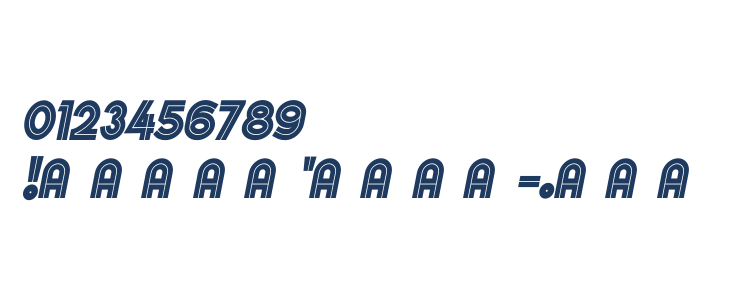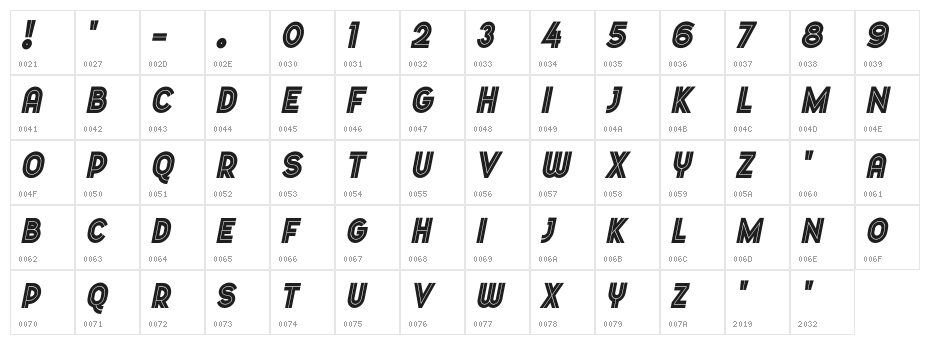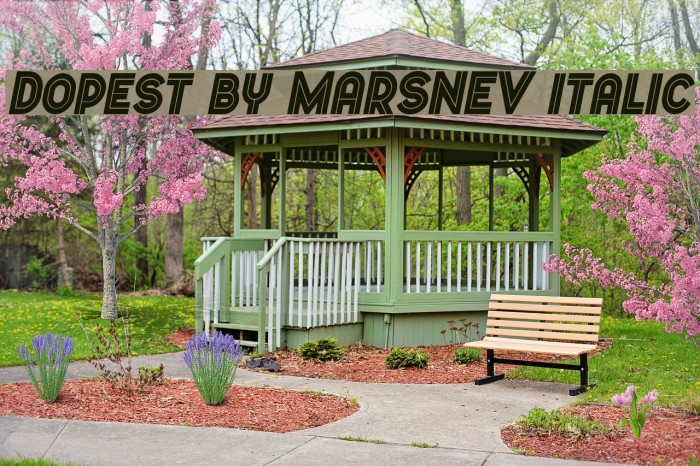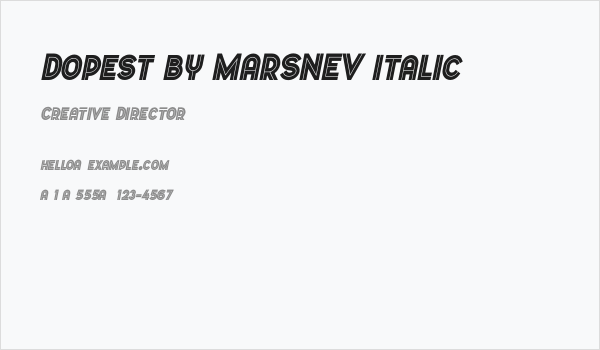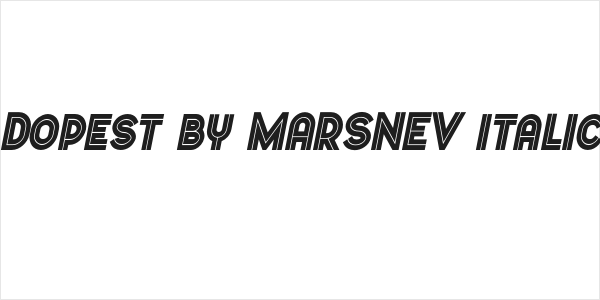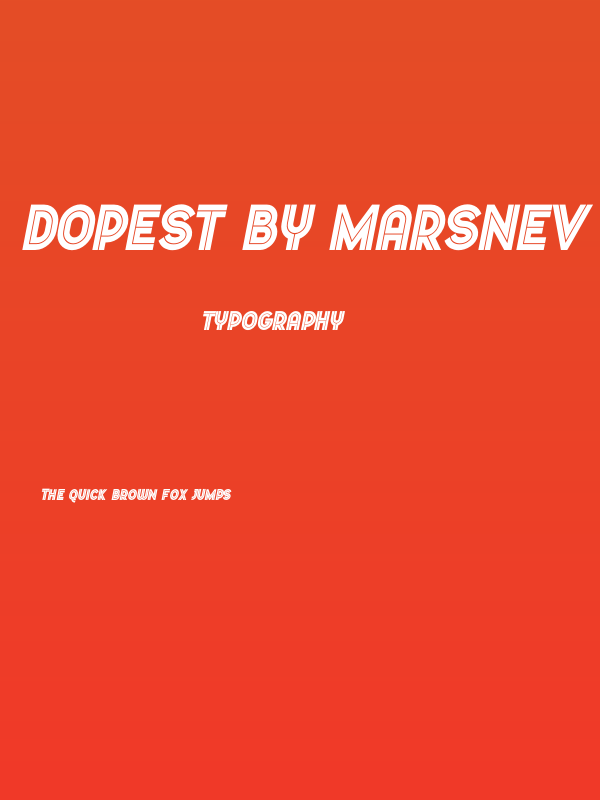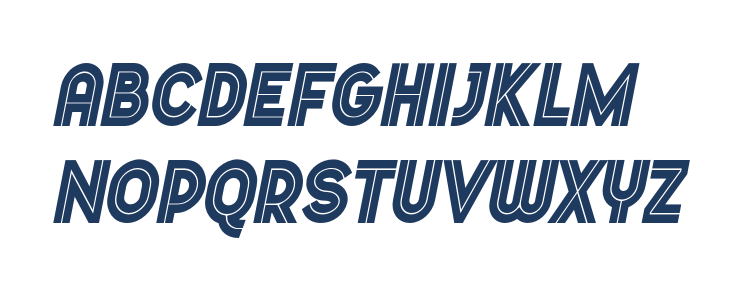
Dopest by MARSNEV italic Font
Dopest by MARSNEV italic Description
This font features a bold, italicized style with a modern and dynamic appearance. The characters are designed with a strong, geometric structure, incorporating thick lines and sharp angles that create a sense of movement and energy. The uppercase and lowercase letters maintain a consistent style, with the uppercase letters being slightly more pronounced. Numbers are equally bold and follow the same design principles, ensuring uniformity across all characters. The special characters are crafted to match the overall aesthetic, making them suitable for various creative applications.
| Proposed Projects | Ideal for branding, advertising, posters, and digital media where a strong, modern impact is desired. |